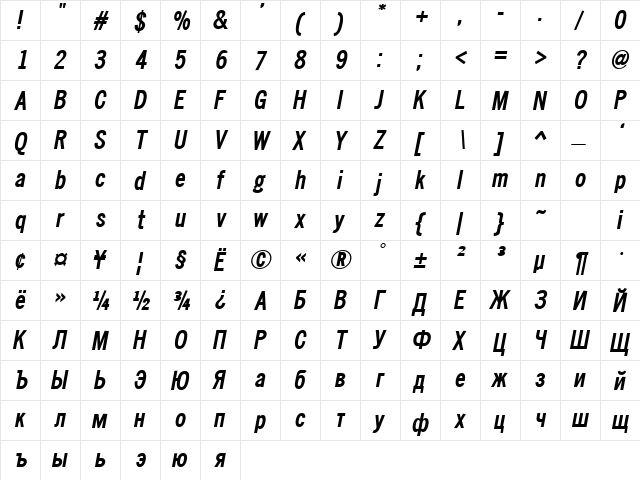
NewsCondensed Bold Oblique Font Preview
Design Context for NewsCondensed Typeface
NewsCondensed is a composed and adaptable typeface that performs quietly and consistently across a wide range of design contexts. The dynamic lean of this cut emphasises speed and emphasis in any layout. Its bold stroke weight gives it real presence on the page. Its narrow stance lets it pack a punch even in space-constrained designs.